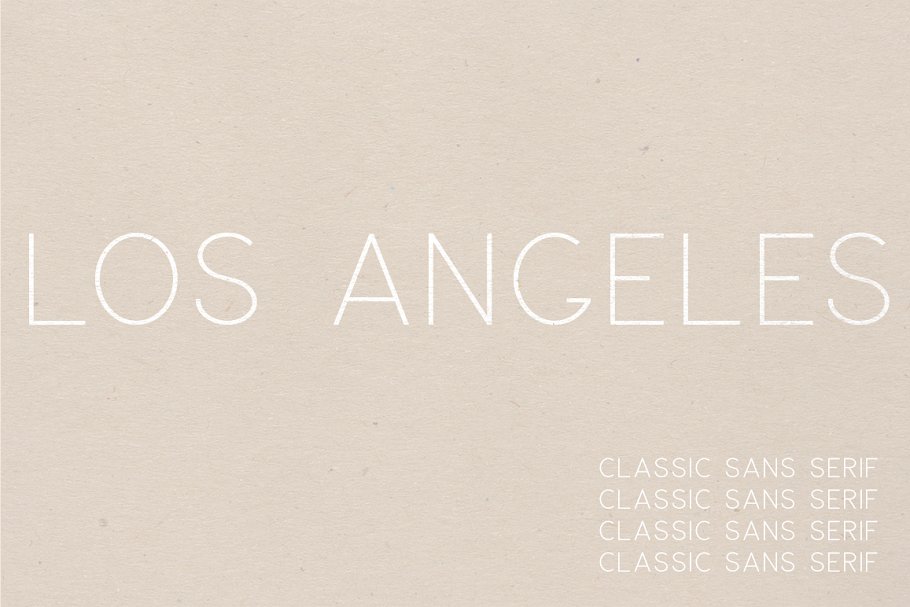
Introducing Los Angeles, a remarkable sans serif font designed by the talented Jen Wagner. If you're searching for the perfect font to elevate your wedding projects, look no further. Los Angeles is specifically crafted for wedding names, ensuring that every invitation, place card, and sign exudes elegance and sophistication.
With its stunning clean lines, Los Angeles is a true work of art. Its simplicity is captivating, evoking a sense of modernity and grace. Whether you're designing a contemporary wedding or a timeless celebration, this font effortlessly adapts to any style, making it an ideal choice for both traditional and trendy couples.
One of the standout features of Los Angeles is its exceptional versatility. With three weights available, you have the flexibility to create diverse designs without compromising on aesthetics. From delicate and airy to bold and impactful, each weight adds a unique touch to your typography, allowing you to truly personalize your wedding stationery.
Los Angeles includes a comprehensive set of characters to fulfill all your creative needs. The uppercase and lowercase letters blend harmoniously, offering endless possibilities for elegant combinations. Additionally, the inclusion of numbers and punctuation ensures that your designs remain cohesive and polished throughout.
International couples rejoice! Los Angeles goes above and beyond by providing non-English characters, making it the perfect choice for multicultural weddings. Celebrate your love with a font that embraces diversity and inclusivity, allowing you to incorporate various languages seamlessly into your designs.
When you choose Los Angeles, you're not just investing in a font – you're investing in an unforgettable experience. This font transcends mere letters and transforms your wedding stationery into a breathtaking work of art. Your guests will be captivated by its beauty, creating a lasting impression that reflects the love and commitment you share.
Unleash your creativity and let Los Angeles be the muse for your wedding design dreams. Its timeless elegance, versatility, and extensive character set ensure that your typography will be the envy of every couple. From save-the-dates to thank you cards, this font will elevate every aspect of your wedding journey.